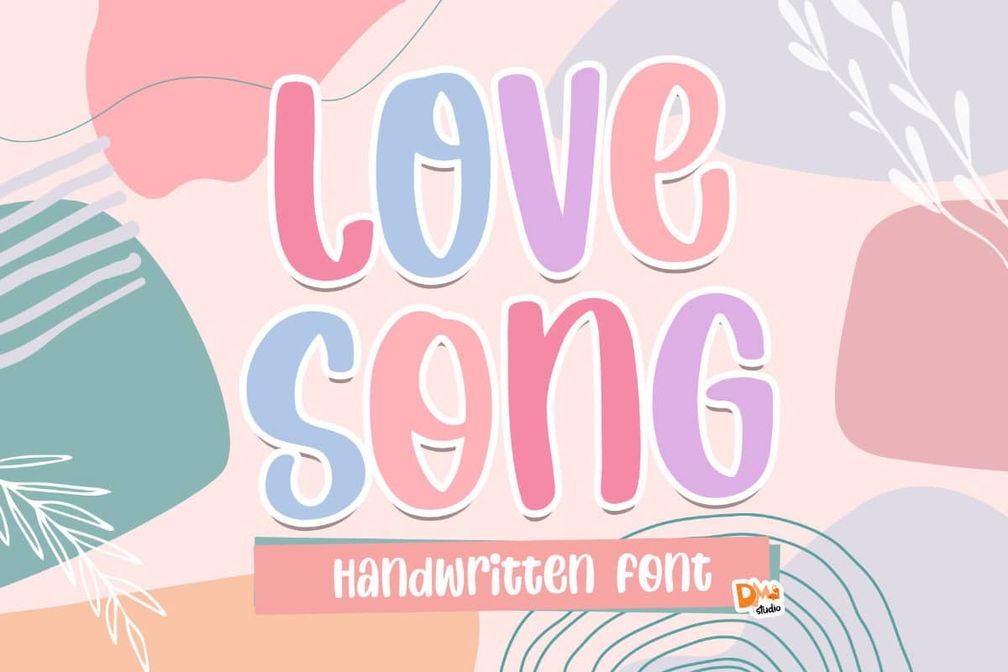
Love Song Font
Love Song Font is a romantic and elegant typeface crafted to evoke feelings of love and tenderness. With its graceful letterforms and timeless style, this font adds a touch of romance to your designs. Perfect for wedding invitations, love letters, branding, and other projects where sophistication and sentimentality are desired.
1. Romantic and Elegant Design: The Love Song Font features graceful letterforms and a timeless style that exudes romance and sophistication.
2. Versatile Application: Ideal for a wide range of design projects, including wedding invitations, love letters, branding, and more, where a touch of romance and tenderness is desired.
4. Uppercase and Lowercase Letters: Includes both uppercase and lowercase letters for creative flexibility and harmonious typography.
5. Punctuation and Symbols: Comprehensive set of punctuation marks, numerals, and symbols for consistent and versatile use.